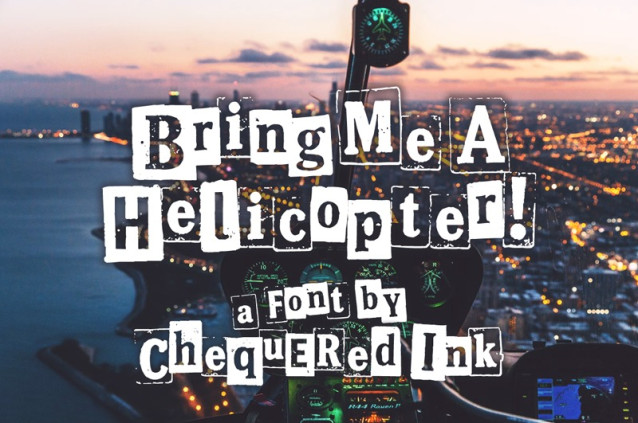
Bring Me A Helicopter! Font
Bring Me A Helicopter! Font is a simple and modern display font suitable for quotes, logos, headings, titles, and many more. Use it on any of your creative projects, and your designs will become outstanding!